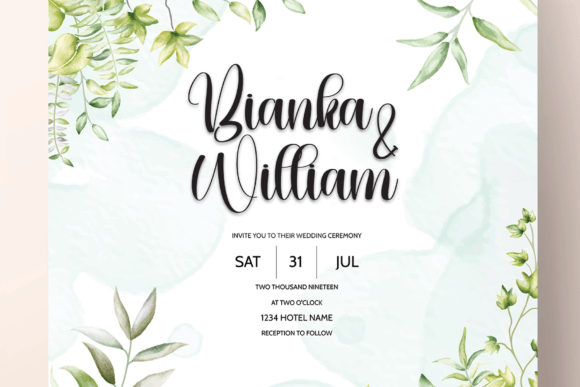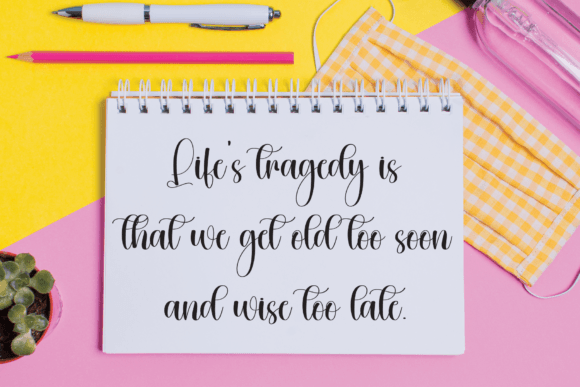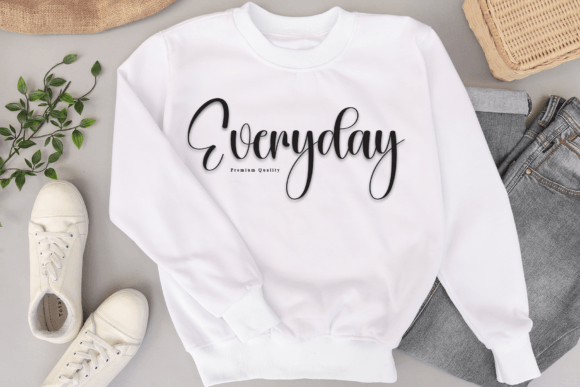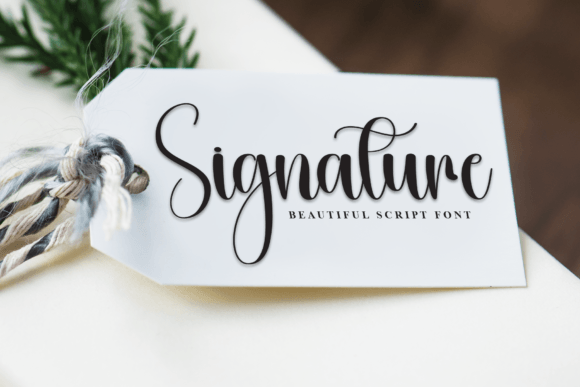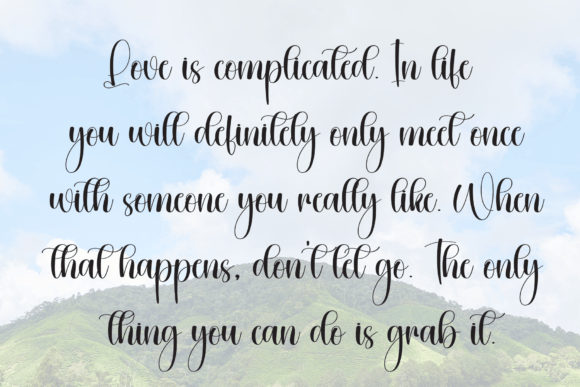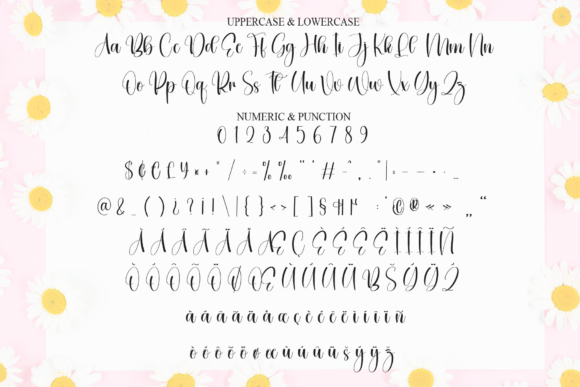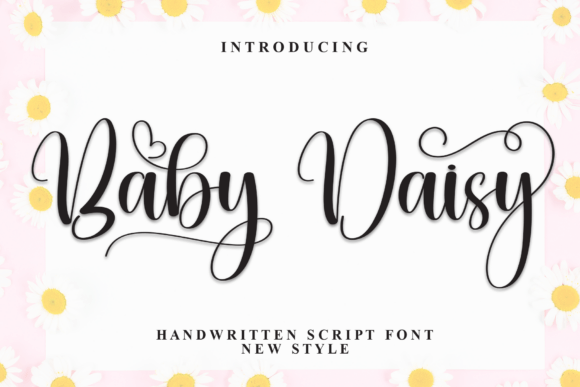
Baby Daisy Font: Add a Sweet Touch to Your Designs
Are you looking for a font that can add a playful and charming touch to your designs? Look no further than the Baby Daisy Font. This lovely handwritten font features elegant, long heart tails that make it perfect for creating sweet and inviting designs. In this article, we’ll take a closer look at the Baby Daisy Font, its features, and how you can use it to elevate your creative projects.
What is Baby Daisy Font?
Baby Daisy Font is a beautiful handwritten font that is designed to bring a touch of elegance and playfulness to your designs. It features soft curves and heart details that make it stand out from other fonts. The font has a charming and whimsical feel, making it perfect for creating designs that require a personal touch.
Key Features of Baby Daisy Font
- Elegant Handwritten Style: Baby Daisy Font has a lovely handwritten style that is perfect for creating invitations, cards, and other creative projects.
- Long Heart Tails: The font features elegant, long heart tails that add a touch of whimsy and playfulness to your designs.
- Soft Curves: The soft curves of the font make it easy to read and add a touch of elegance to your designs.
- Heart Details: The heart details in the font make it perfect for creating designs that require a sweet and loving touch.
Uses of Baby Daisy Font
Baby Daisy Font is a versatile font that can be used for a variety of creative projects, including:
- Invitations: Use Baby Daisy Font to create beautiful and elegant invitations for weddings, baby showers, and other special occasions.
- Cards: Add a personal touch to your greeting cards with Baby Daisy Font.
- Stationery: Use the font to create custom stationery, including letterheads, notebooks, and journals.
- Digital Designs: Baby Daisy Font can be used for digital designs, including social media graphics, blog posts, and website headers.
Why Choose Baby Daisy Font?
There are many reasons why you should choose Baby Daisy Font for your creative projects. Here are a few:
- Unique and Playful Style: Baby Daisy Font has a unique and playful style that will make your designs stand out.
- Elegant and Whimsical: The font has an elegant and whimsical feel that is perfect for creating designs that require a personal touch.
- Easy to Read: The soft curves and clear lettering of the font make it easy to read.
Tips for Using Baby Daisy Font
Here are a few tips for using Baby Daisy Font in your designs:
- Pair with Other Fonts: Pair Baby Daisy Font with other fonts to create a unique and interesting design.
- Use for Headings and Titles: Use Baby Daisy Font for headings and titles to add a touch of elegance and whimsy to your designs.
Baby Daisy Font is a beautiful and versatile font that can add a sweet touch to your designs. With its elegant handwritten style, long heart tails, and soft curves, it’s perfect for creating invitations, cards, and other creative projects. Whether you’re a designer or crafter, Baby Daisy Font is a great addition to your font collection.
So why not give Baby Daisy Font a try? With its unique and playful style, it’s sure to bring joy and elegance to your designs.